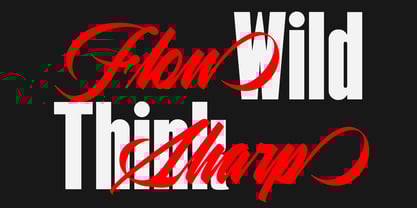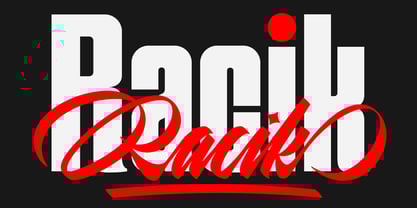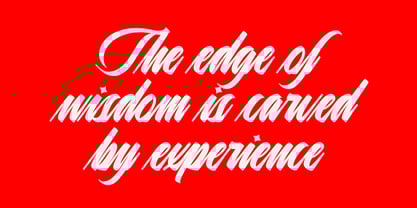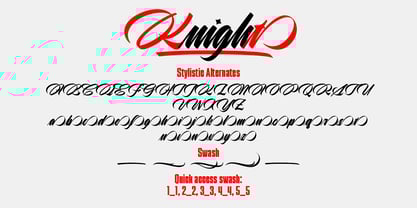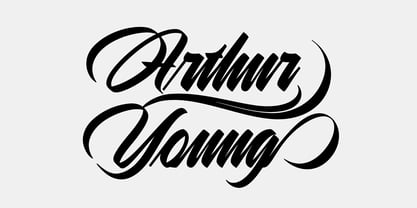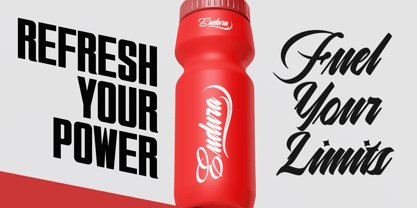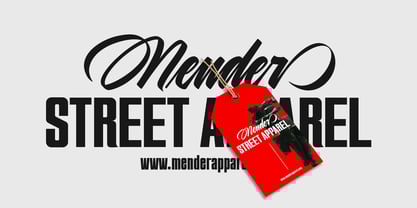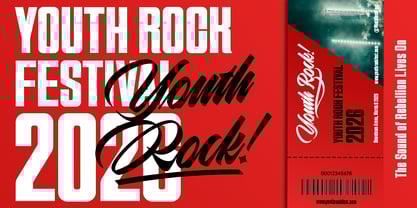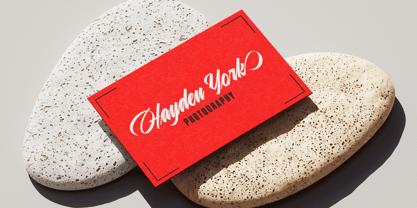
Racik
by Lemonthe
The Racik Font Family was designed by Dwi Ahidian and published by Lemonthe. Racik contains 2 styles and family package options. More about this family
Racik Font Duo is a combination of a bold, strong sans serif and a dynamic, brush-style script. This duo is designed for branding needs that want to look powerful while still having a personal touch, making it suitable for logos, apparel, product labels, event posters, packaging, and various visual materials that require a bold and recognizable look. With a clear contrast between the block letters and the expressive script strokes, this font helps create designs that are solid, eye-catching, and memorable.
"Lemonthe is a type foundry operated by Dwi Ahidian, a letter enthusiast who enjoys calligraphy and loves experimenting with letter forms. Lemonthe provides a captivating collection of typefaces, each carrying a creative and unique experimental touch, meticulously crafted by hand. Dedication to detail ensures that some typefaces emanate a deep and serious aesthetic, while others showcase a more playful and creative side."